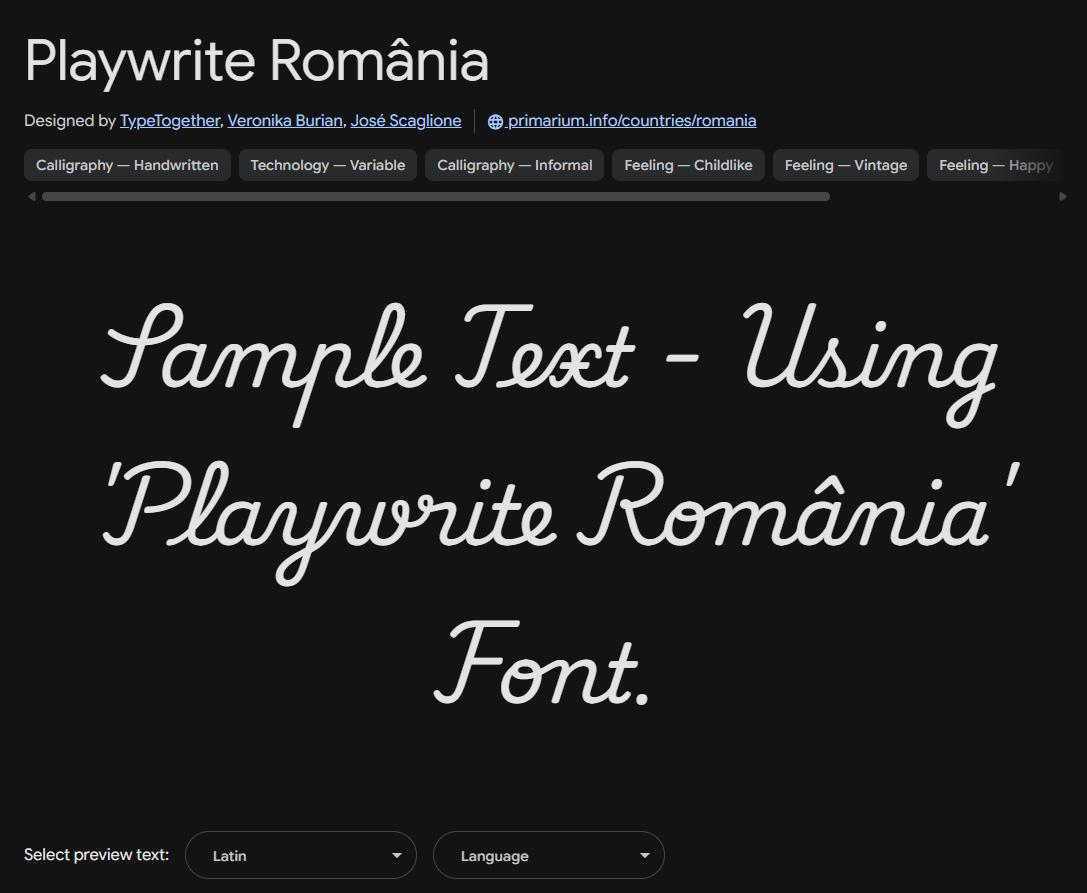
Playwrite România, a sophisticated variable typeface engineered by the collaborative expertise of Veronika Burian and José Scaglione at TypeTogether, redefines educational typography through its singular weight axis designed to optimize stroke fluidity for primary pedagogy. This digital asset meticulously captures the rhythmic nuances of Romanian handwriting standards, leveraging the variable font format to maintain consistent optical legibility across a spectrum of weights while facilitating seamless transitions in dynamic instructional environments. By synthesizing traditional calligraphic ductus with contemporary CSS-driven responsiveness, the designers have created a semantically robust typographic solution that preserves localized graphemic integrity while meeting the high-performance demands of modern digital rendering engines.
Playwrite România emerges as a sophisticated synthesis of educational utility and digital craftsmanship, functioning as a high-performance variable font that bridges the gap between structured calligraphy and spontaneous, handwritten expression. By leveraging modern interpolation technology, the typeface transitions through a spectrum of informal ductus, capturing a childlike and happy essence that remains grounded in a rugged, vintage aesthetic reminiscent of mid-century pedagogical primers. Its localized Romanian character set is engineered with fluid stroke modulation and organic terminals, fostering a playful yet legible rhythm that mirrors the tactile quality of early penmanship. This typeface transcends mere decorative script by offering a unique typographic perspective where technical precision meets the unrefined warmth of human-centric design, making it a robust semantic tool for projects requiring a blend of nostalgic charm and contemporary variable font functionality.
Playwrite România is fundamentally ill-suited for high-density legal documentation or corporate financial reporting where the variable axis must maintain rigorous vertical metrics and standardized leading across multi-column layouts. Because its design architecture centers on the continuous cursive ductus of primary education models, the flowing strokes and regional-specific glyph constructions create a rhythmic variance that complicates rapid vertical scanning and compromises legibility in micro-UI environments. In the context of industrial data visualization or high-precision Optical Character Recognition (OCR) systems, the organic counter-forms and lack of rigid geometric terminals inherent in this TypeTogether project introduce unacceptable levels of semantic ambiguity and visual noise compared to high-contrast, static-width sans-serifs.
This font family embodies a modern school-based handwriting aesthetic designed to mimic the continuous-stroke calligraphy taught in Romanian primary education. Its architecture focuses on cursive fluidity and stroke consistency, adhering to the specific glyph construction standards defined by the Romanian Ministry of Education.
The Playwrite family is primarily developed as a variable font that offers a broad spectrum of weights from ExtraLight to Regular. Utilizing interpolation along the Weight (wght) axis, designers can access specific values ranging from 100 to 400 within a single compact file.
The organic strokes and rhythmic flow make it an excellent choice for large-scale displays that require a personal, humanistic touch. The high-fidelity Bézier curves ensure that the stroke terminals and junctions remain crisp even when scaled to significant pixel dimensions.
The font is specifically engineered to include the full range of Romanian characters, ensuring proper rendering of local linguistics. It features correctly shaped comma-below diacritics as defined by Unicode blocks U+0218 through U+021B, avoiding the common mistake of using cedillas.
Educational materials, children's books, and branding projects seeking an authentic, approachable feel benefit most from this typeface. Its contextual alternates simulate natural pen-on-paper transitions, enhancing the visual authenticity of instructional literacy interfaces.
While it works well for decorative headers and educational apps, it should be used sparingly to ensure UI clarity. The vertical metrics and generous x-height provide sufficient legibility, though it lacks the high-contrast stroke terminals required for dense system-level navigation.
Clean, geometric sans-serifs like Montserrat or Roboto provide a stable contrast to the fluid, handwritten nature of the font. Pairing with a low-stroke-contrast grotesque ensures that the typographic hierarchy remains balanced without competing with the font's distinctive cursive skeletons.
The font maintains decent legibility at moderate sizes due to its open counters, but it is not optimized for long-form body text at very small scales. Below 12pt, the intricate cursive joins can lead to visual crowding, necessitating a tracking adjustment to maintain glyph separation.
Playwrite România is distributed as a variable font, allowing for a highly customizable range of stylistic variations. By leveraging the variable font framework, users can dynamically adjust the weight axis to meet precise WCAG contrast ratios in digital environments.
It is highly effective for editorial pull-quotes and human-centric features where a departure from rigid structure is desired. The inclusion of extensive OpenType features allows for seamless ligatures that mimic the specific ligated stroke patterns of traditional Romanian handwriting.